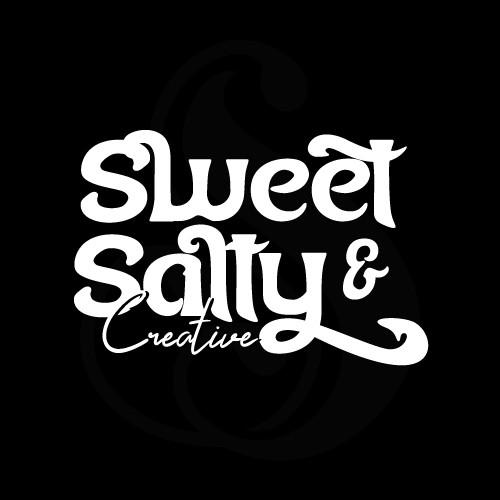
Cobain Show Font Description
Cobain Show is a street-style duo font ( display and script) that you can use for marketing materials, games, street-wear designs, or other modern crafty projects. You can combine the bold all-capital display with the monoline script to create vintage-style designs or cyber-punk themes.